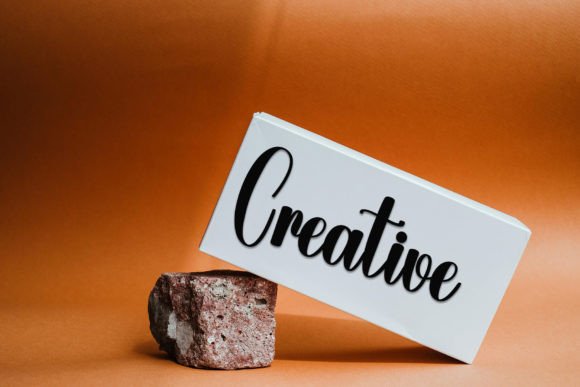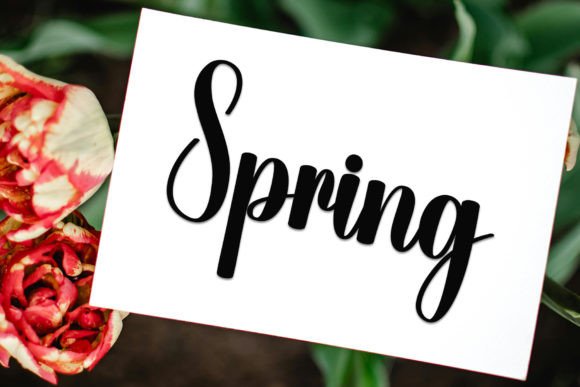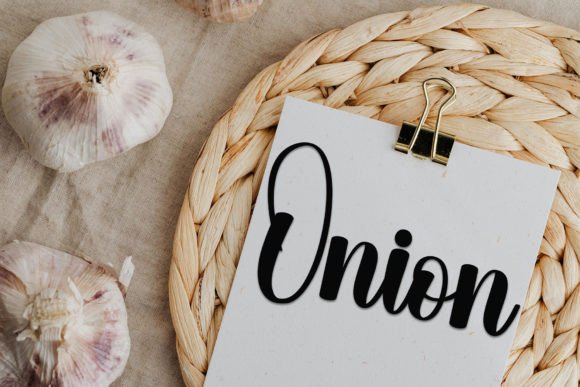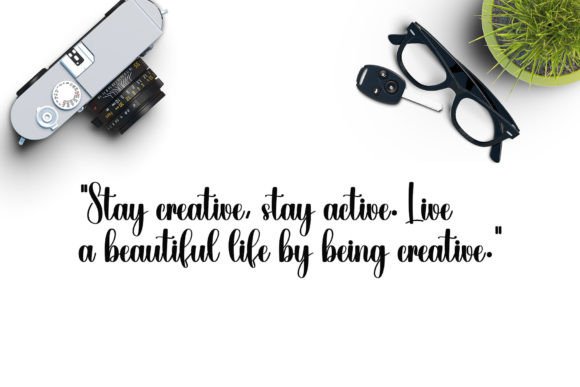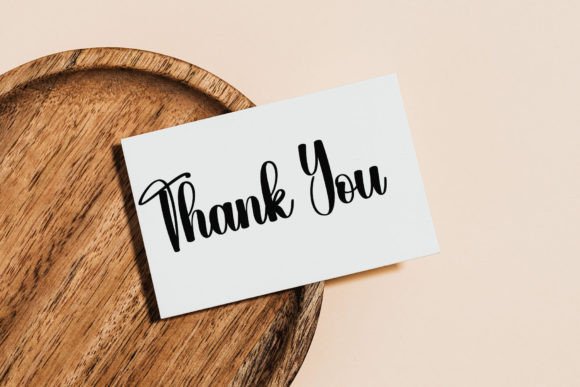
Adding a Personal Touch: The Magic of Autography Font
As the holiday season approaches, we find ourselves reminiscing about the joy of handwritten notes and festive decorations that bring warmth to our homes. There’s something special about receiving a card with a personalized message, crafted with love and care, that makes us feel seen and appreciated. This is where the Autography Font comes in – a charming handwritten font that captures the essence of the holiday spirit.
With its flowing letters and warm, inviting feel, Autography Font is perfect for adding a personal touch to holiday messages, cards, and decorations. Whether you’re a designer looking to create unique and eye-catching designs or simply want to make your holiday greetings stand out, this font is a valuable asset in your creative toolkit. Its versatility and charm make it a must-have for anyone looking to add a touch of personality to their holiday designs.
Autography Font Key Features
- Font Style: Script font with a unique, handwritten feel
- Character Count: Includes a wide range of characters, including uppercase and lowercase letters, numbers, and punctuation
- Unique Characteristics: Features a dynamic, expressive feel with subtle variations in letterform and stroke width, giving it a personal and artistic touch
Autography Font Review
At first glance, Autography Font seems like a promising choice for designers. ✨ The font’s elegant, cursive script is perfect for adding a touch of sophistication to any project. I particularly appreciate the attention to detail in the design of the individual letters, which gives the font a unique, handwritten feel.
One of the standout features of Autography Font is its versatility. ✨ It can be used for a wide range of applications, from wedding invitations and greeting cards to logos and branding materials. The font is also highly customizable, allowing designers to adjust the weight, size, and spacing to suit their needs.
While Autography Font has its strengths, there are some limitations to be aware of. ⚠️ For one, the font may not be as readable at very small sizes, which can be a problem for designers who need to use it for body text or other applications where legibility is crucial.
- ⚠️ Limited character set: Autography Font may not include some special characters or foreign language support, which can be a problem for designers who need to use it for international projects.
- ⚠️ Not ideal for bold text: While Autography Font is highly customizable, it may not be the best choice for bold text or headings, as the font’s weight can become too dense and overwhelming.
Overall, I would give Autography Font a solid 4 out of 5 stars. While it has some limitations, the font’s unique design and versatility make it a great choice for designers who want to add a touch of elegance to their projects.
Use Autography Font to create personal and unique designs for:
– Invitations and event announcements
– Social media graphics and ads
– Business cards and letterheads
For optimal results, pair the Autography Font with a clean and simple design aesthetic.
Experiment with different font sizes and colors to achieve a balanced and visually appealing look.